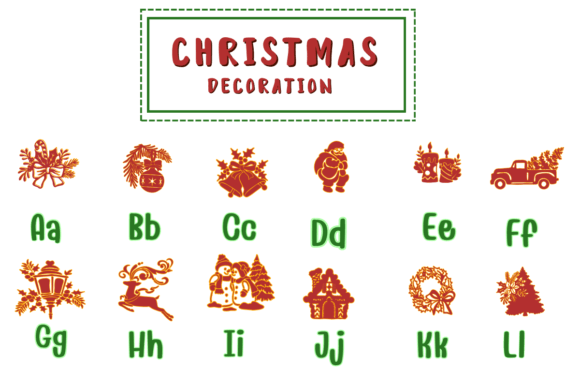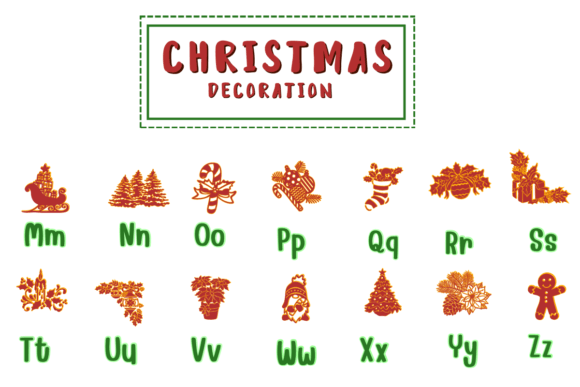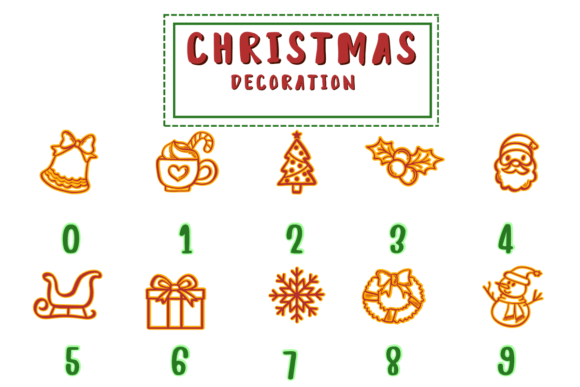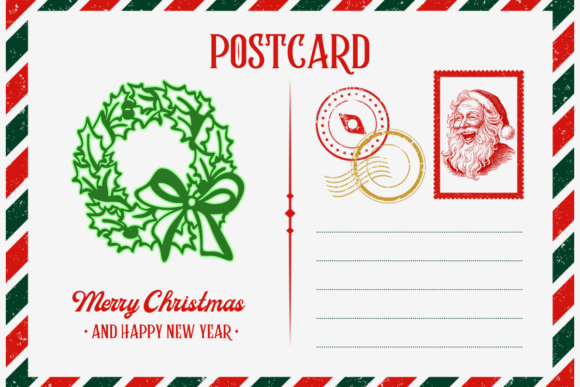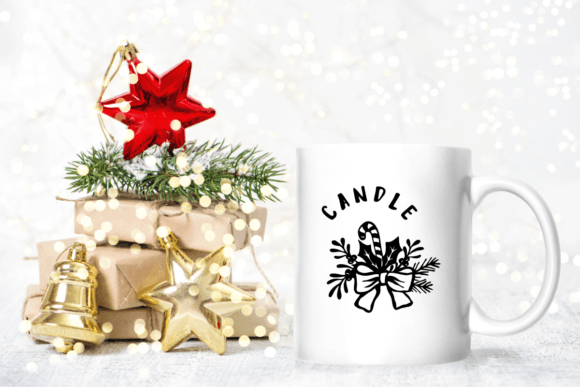
The Magic of the Christmas Decoration Font
As you sit by the fireplace, surrounded by twinkling lights and the soft glow of festive candles, do you ever feel the urge to bring that same magic to your designs? For many of us, the winter holidays are a time of joy and creativity, and finding the perfect font to match that spirit can be a challenge. That’s where the Christmas Decoration Font comes in – a delightful dingbat font that’s packed with all the elements that bring cheer to the season.
With its whimsical characters and festive flair, this font is the perfect addition to any project looking to capture the essence of Christmas. Whether you’re designing holiday cards, decorations, or even a festive website, the Christmas Decoration Font is sure to bring a smile to your clients’ faces. As a designer, you know the importance of finding the right font to convey the mood and atmosphere of your project – and with this font, you’ll be sure to hit the mark.
Christmas Decoration Font Key Features
- Font Style: A festive and playful font with a mix of uppercase and lowercase letters, designed to resemble Christmas decorations.
- Character Count: The font includes a wide range of characters, including uppercase and lowercase letters, numbers, punctuation marks, and special characters, totaling around 250 characters.
- Unique Characteristics: The font features intricate designs and ornaments that resemble Christmas decorations, such as holly leaves, snowflakes, and candy canes, adding a touch of whimsy and festivity to any design.
Designer Review: Christmas Decoration Font
Overall, I’d say the Christmas Decoration Font is a fun and festive addition to any holiday design project. ✨ It’s perfect for creating eye-catching headings and titles that scream “Merry Christmas!”
- Unique and playful characters that add a touch of whimsy to your designs ✨
- Easy to use and integrate into most design applications
- Great for creating a cohesive look and feel for holiday-themed projects
However, I do have a few concerns that might limit its use in certain situations ⚠️.
- Limited character set, which might make it difficult to use for longer blocks of text
- Some characters may not display properly in certain fonts or sizes
- May not be suitable for formal or professional holiday designs
In conclusion, the Christmas Decoration Font is a great choice for casual, fun designs, but may not be the best fit for more formal or complex projects. With its playful characters and easy integration, it’s a great addition to any holiday design arsenal.
The Christmas Decoration Font is ideal for:
- Christmas and winter-themed designs.
- Holiday cards and invitations.
- Party and event decorations.
- Seasonal marketing materials.
For optimal results, use the font in conjunction with other festive graphics and elements.
What is the recommended font size for optimal legibility in designs using the Christmas Decoration Font?
For optimal legibility, we recommend using a font size of at least 24 points. However, the ideal font size will depend on the specific design and the intended use of the font. If you’re designing for digital use, such as a website or social media graphic, a smaller font size may be more suitable. For print use, such as a poster or brochure, a larger font size may be more effective.